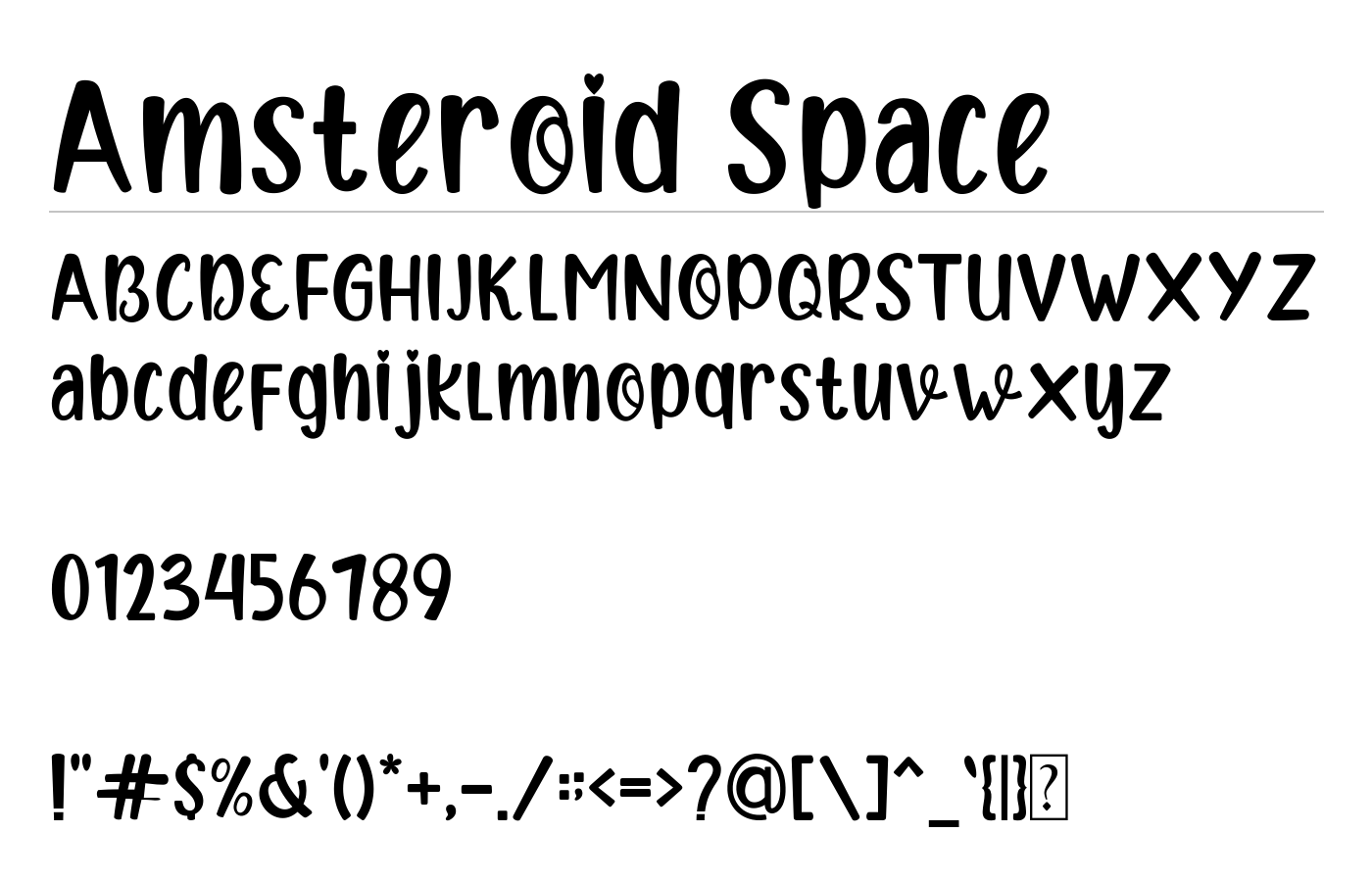
Amsteroid Space is a playful sans serif font with a quirky, hand-drawn feel, featuring slightly uneven strokes and unique character shapes like the heart-dotted i and the oval-stroked o. Its medium weight and condensed width give it a friendly yet distinctive look, ideal for fun, informal designs that want to convey creativity and charm. This font works well for children’s books, casual branding, and eye-catching headlines where a whimsical and approachable style is desired.
Amsteroid Space Font
About Amsteroid Space Font